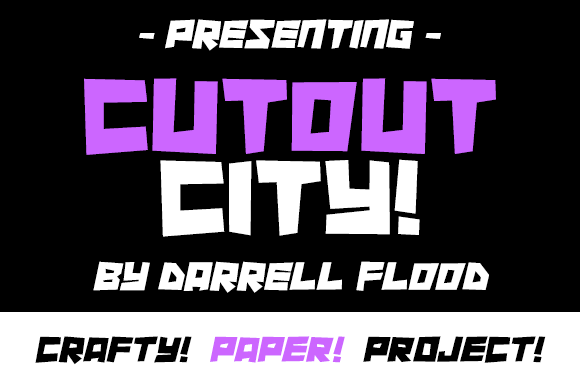
Get Ready to Craft with Style: Introducing the Cutout City Font
Have you ever sat at your desk, surrounded by scraps of paper, glue, and scissors, feeling inspired by a burst of creative energy? You’re not alone. Many designers and crafty enthusiasts have experienced that magical moment when the perfect font can bring their projects to life. That’s where the Cutout City Font comes in – a fun, papercraft font in an angular cut-out style that’s perfect for arts and crafts themes.
This delightful font is not just a visual treat, but also a valuable tool for designers looking to add a personal touch to their projects. Whether you’re working on a children’s book, a craft tutorial, or a design project with a vintage twist, the Cutout City Font is sure to bring a unique charm to your work. With its playful, cut-out style, this font is sure to become a staple in your design arsenal.
Cutout City Font Key Features
- Font Family: Cutout City Font is a sans-serif font family designed for urban and modern settings.
- Character Count: The font family includes over 800 characters, including Latin, Cyrillic, and Greek alphabets.
- Font Size: Available in 5 different weights: Thin, Light, Regular, Medium, and Bold, with font sizes ranging from 10 to 72 points.
- Resolution: Optimized for high-resolution displays, with a minimum recommended resolution of 96 dpi.
- Unique Characteristics: Cutout City Font features a unique, hand-drawn style with subtle texture and subtle irregularities, giving it a modern and urban feel.
Designer Review: Cutout City Font
Overall, I’d say Cutout City Font is a decent option for those looking for a quirky, hand-drawn feel in their typography. ✨ Here are a few things it does well:
- Unique, stylized characters that stand out from more generic fonts.
- Good for titles, headings, and short blocks of text where a more playful feel is desired.
- Includes a decent range of languages and character sets.
- Some characters, particularly punctuation marks, may be a bit difficult to read due to their simplified, cut-out design.
- May not be the best choice for large blocks of text or situations where legibility is a top priority.
- May require some additional styling or adjustments to make it work well in certain contexts.
Overall, I’d give Cutout City Font 3 out of 5 stars. It’s a fun, creative option for certain projects, but it’s not a go-to choice for everyday typography needs. With some careful consideration and styling, it can be a great addition to your design toolkit.
Getting the Most Out of the Cutout City Font
Use the Cutout City Font for urban-themed designs, such as cityscape illustrations, street art, and architectural designs. This font is ideal for creating bold and modern text that stands out in a crowd.
Experiment with different font sizes, colors, and combinations to create unique and eye-catching designs.
The Cutout City Font is commonly used for:
- City map illustrations
- Street art designs
- Architectural designs
- Urban-themed posters and flyers